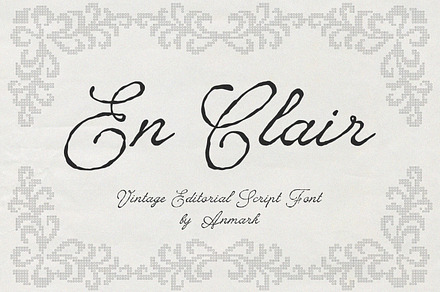
En Clair Vintage Rough Script Font
A vintage script with roughened edges, reproducing the ink spread and letterpress bite of period printing rather than clean digital outlines.
Rough texture in a font has to repeat across characters without forming a visible pattern, which is the technical difficulty in this kind of face.
- Roughened print-bite edges
- Alternates and ligatures
- Heritage and craft branding
- Packaging and label design
- Signage and merchandise
- Poster and print work